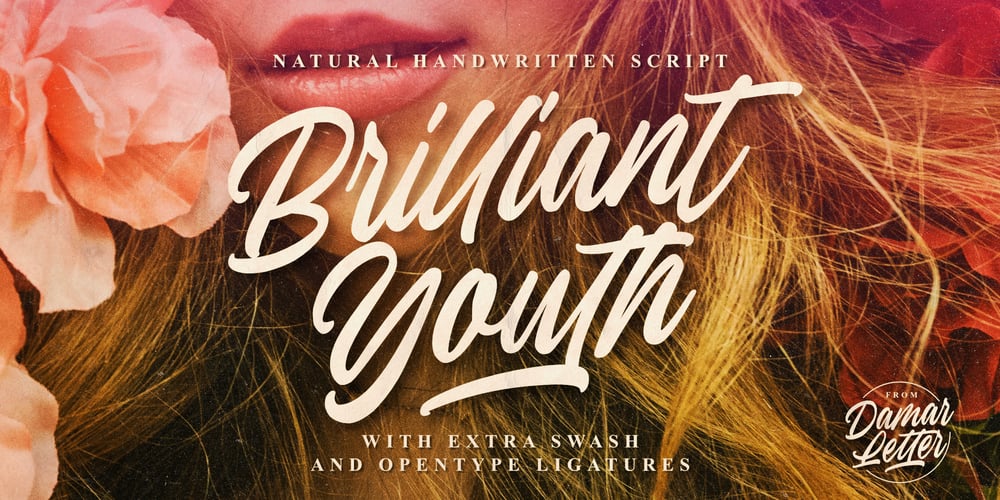
Brilliant Youth
Brilliant Youth font
Brilliant Youth Font Family was designed by Ardian Nuvianto and published by Ardian Nuvianto. Brilliant Youth contains 1 styles and family package options. Brilliant Youth is a chic, refined script font. Its stylish ligatures make this font the perfect match for any project.This font is consisting of a fashionable style script make looks classy and touch of stylish.This font was created to look as close to a natural handwritten script as possible.It is perfect for branding projects, logos, wedding designs, social media posts, advertisements, product packaging, product designs, label, photography, watermark, invitation, stationery and anything that you want.This font is PUA encoded which means you can access all of the amazing glyphs and ligatures with ease!